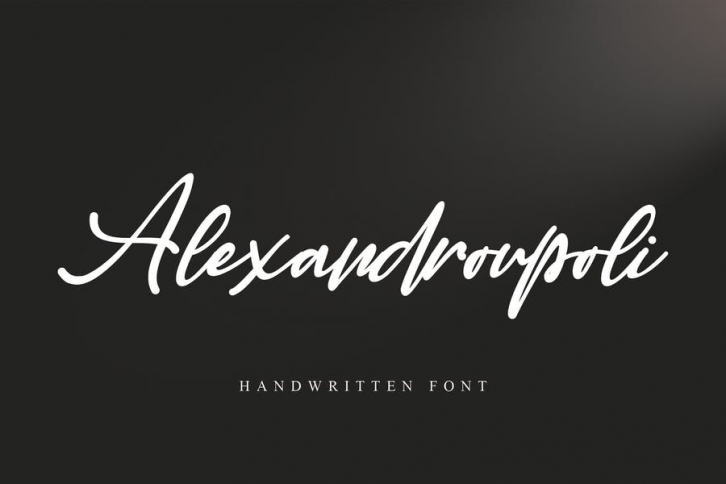
Alexandroupoli is an elegant designed handwritten font that’s both authentic and charming. It has elegant and well-balanced characters and as a result, it matches a wide pool of designs. Add it to your most creative ideas and notice how it makes them come alive!
This font is PUA encoded which means you can access all of the amazing glyphs and swashes with ease! It also features a wealth of special features including alternate glyphs and ligatures.